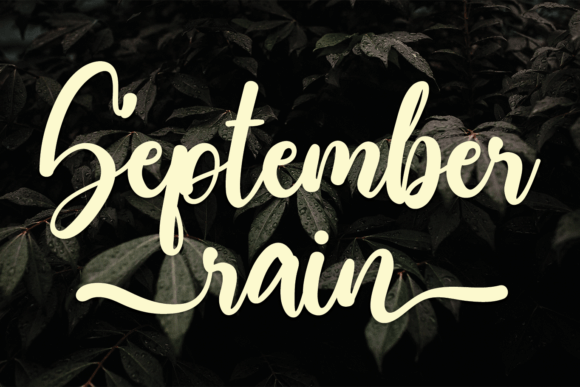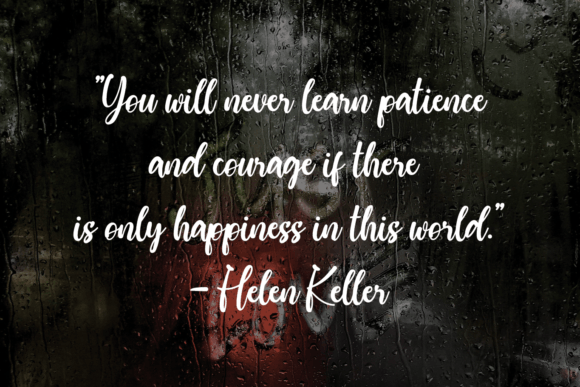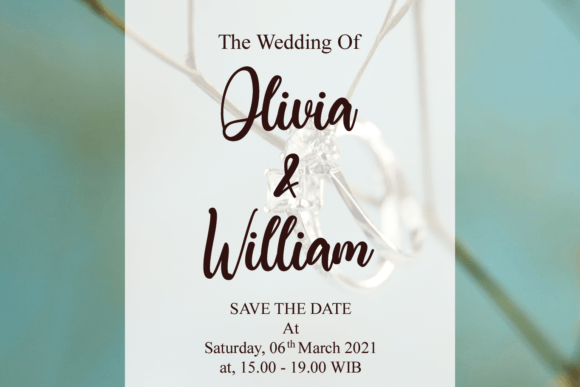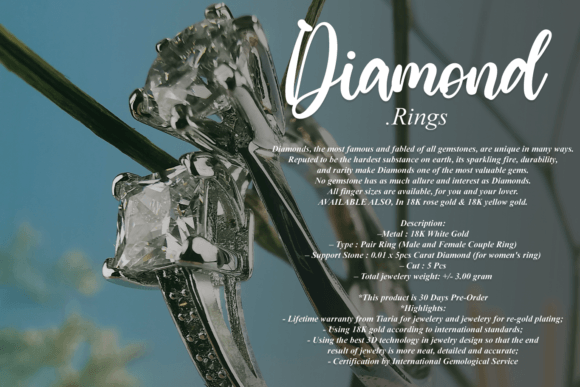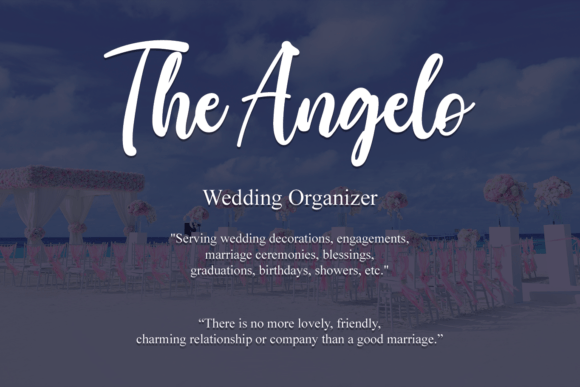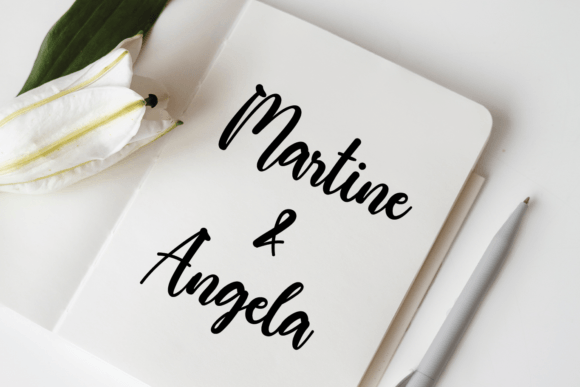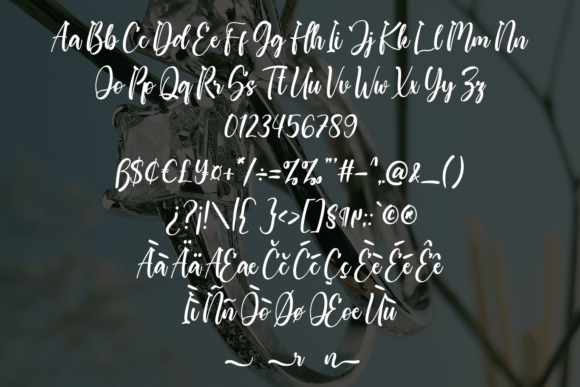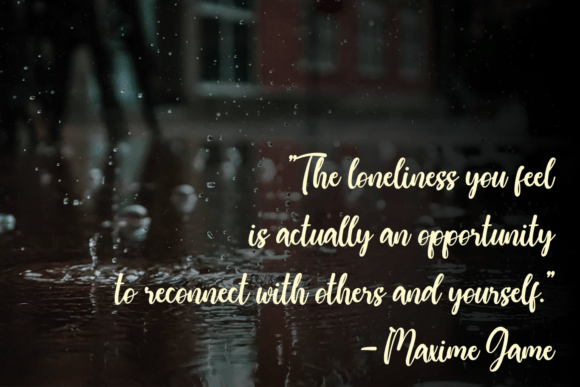
September Rain Font
About September Rain Font
“September Rain” is an exquisite handwritten font that has been masterfully designed to capture hearts and become a true favorite. It retains its classy calligraphic influences while exuding a contemporary and fresh feel. Prepare to fall in love with this font and elevate your projects to new heights of elegance and sophistication!
This font seamlessly blends the timeless charm of calligraphy with a modern and vibrant touch. Its graceful strokes and intricate details make it a versatile choice for various design applications, allowing it to infuse a sense of refinement and creativity into your work.
Whether you’re crafting branding materials, logos, invitations, or any other design project, “September Rain” possesses the versatility to enhance and complement your creative vision. Its ability to blend classic elegance with contemporary appeal makes it a valuable asset for creating memorable and visually captivating designs.
For individuals and businesses seeking a font that marries the timeless beauty of calligraphy with a fresh and modern twist, “September Rain” is a captivating choice. It can help you establish a distinguished visual identity and elevate your projects to the highest levels of sophistication.
In summary, “September Rain” is an exquisite handwritten font that retains its classic calligraphic influences while radiating a contemporary and refreshing aura. Its meticulously crafted design enhances the elegance of your projects, making it an exceptional choice for branding, logos, invitations, and various design endeavors. Prepare to be enchanted by “September Rain” as it takes your work to a realm of timeless beauty and modern allure.